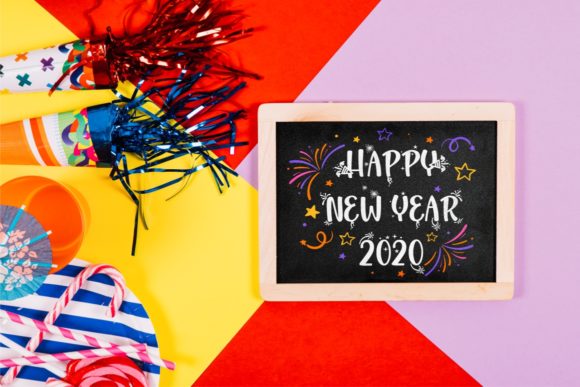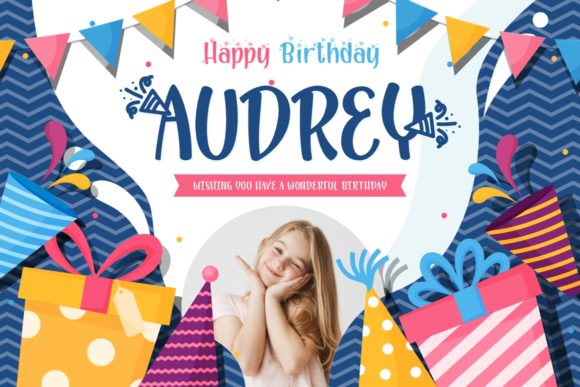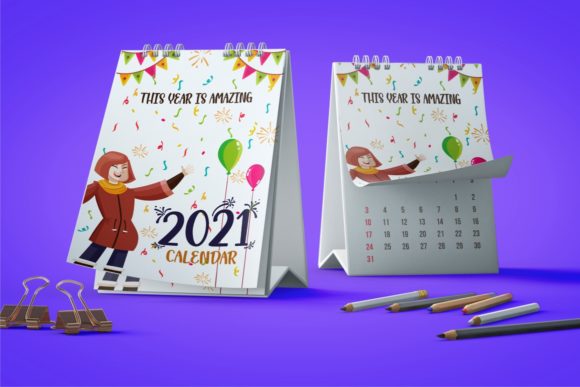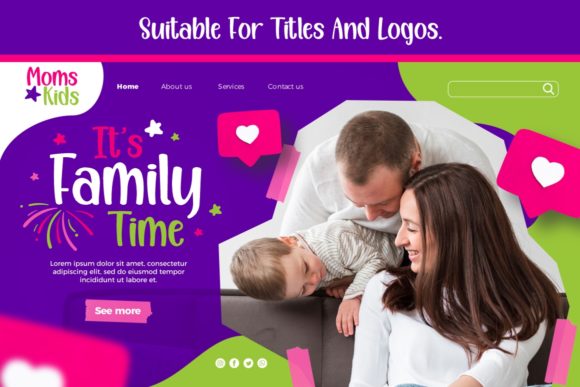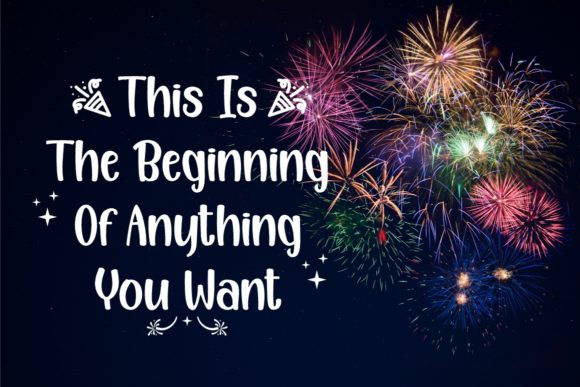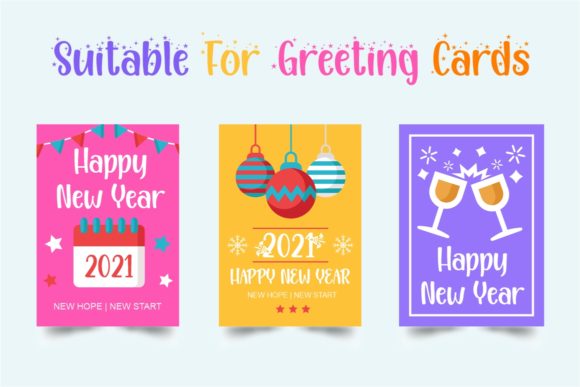
Happy New Year Party Font: Elevate Your Designs with a Playful and Quirky Display Font
As the clock strikes midnight on New Year’s Eve, the world welcomes a fresh start, and with it, a chance to refresh and revitalize our designs. What better way to do so than with a font that’s as vibrant and lively as the celebrations themselves? Introducing the Happy New Year Party font, a playful and quirky display font that’s sure to add a spark to your typography and make your creations stand out.
A Versatile Font for Any Occasion
At first glance, you might think that a font called Happy New Year Party is only suitable for, well, New Year’s Eve parties. But the truth is, this font is an incredibly versatile asset that can elevate any creation, regardless of the topic or theme. Its playful and quirky nature makes it perfect for designs that require a touch of whimsy, fun, and personality.
Whether you’re a designer working on a project for a client, a crafter creating handmade goods, or simply someone who loves to dabble in DIY projects, the Happy New Year Party font is an excellent addition to your font library. Its unique charm and character will help your designs stand out from the crowd and leave a lasting impression on your audience.
What Makes Happy New Year Party Font So Special?
So, what sets the Happy New Year Party font apart from other display fonts out there? Here are just a few of its standout features:
- Playful and Quirky: The Happy New Year Party font has a fun and carefree vibe that’s perfect for designs that need a bit of personality.
- Highly Legible: Despite its playful nature, this font is incredibly easy to read, making it suitable for use in a variety of contexts, from headlines to body text.
- Versatile: As mentioned earlier, the Happy New Year Party font is suitable for a wide range of design projects, from party invitations to branding and advertising.
- Unique Character: This font has a distinct character that’s sure to make your designs stand out from the crowd.
How to Use Happy New Year Party Font in Your Designs
Now that we’ve covered what makes the Happy New Year Party font so special, let’s talk about how to use it in your designs. Here are a few ideas to get you started:
- Party Invitations: Use the Happy New Year Party font to create eye-catching invitations for birthday parties, New Year’s Eve bashes, or other celebrations.
- Branding and Advertising: Add a touch of whimsy to your brand’s typography with this font, or use it to create attention-grabbing ad copy.
- Social Media Graphics: Use the Happy New Year Party font to create engaging social media graphics, such as Facebook posts, Instagram stories, or Twitter headers.
- DIY Projects: Add a personal touch to your DIY projects, such as handmade cards, gift tags, or scrapbook pages, with this fun and quirky font.
Tips for Getting the Most Out of Happy New Year Party Font
To get the most out of the Happy New Year Party font, here are a few tips to keep in mind:
- Experiment with Colors: This font looks great in a variety of colors, so don’t be afraid to experiment and find the perfect hue to match your brand or design.
- Play with Pairings: Try pairing the Happy New Year Party font with other fonts to create a unique and eye-catching typography combination.
- Use it Sparingly: While this font is certainly attention-grabbing, it’s best used sparingly to avoid overwhelming your design.
In conclusion, the Happy New Year Party font is a playful and quirky display font that’s sure to elevate your designs and add a touch of whimsy to your typography. Its versatility, legibility, and unique character make it an excellent addition to any font library, and its potential uses are endless. So why not give it a try and see how it can add some spark to your designs?